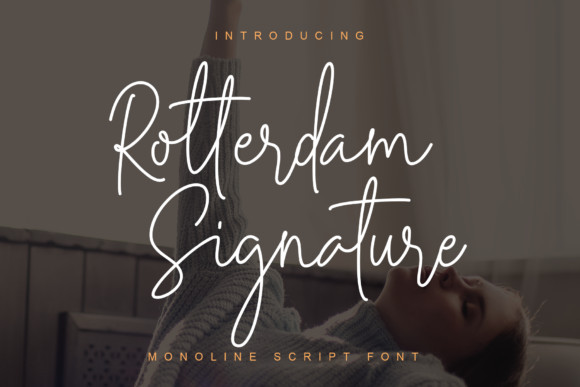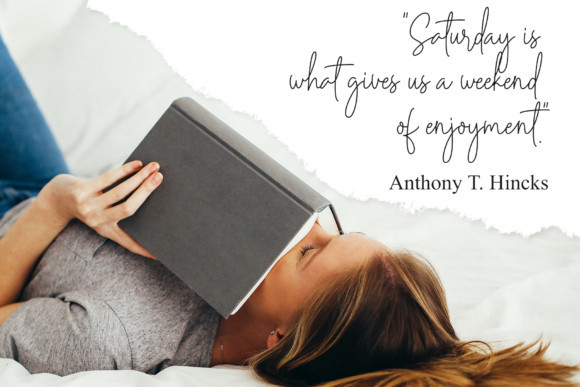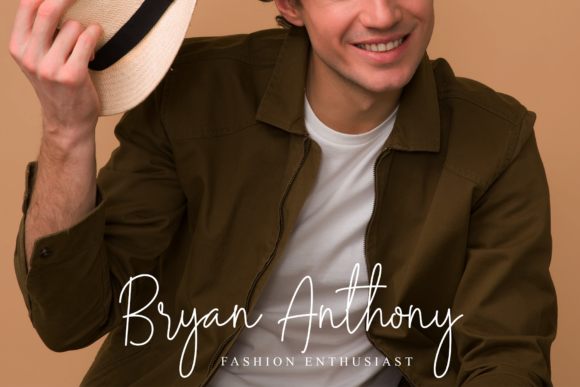
Rotterdam Font
Rotterdam Signature is a handwritten signature script with a natural & stylish flow. This collection of scripts is perfect for personal branding, wedding invitations, advertising and much more!